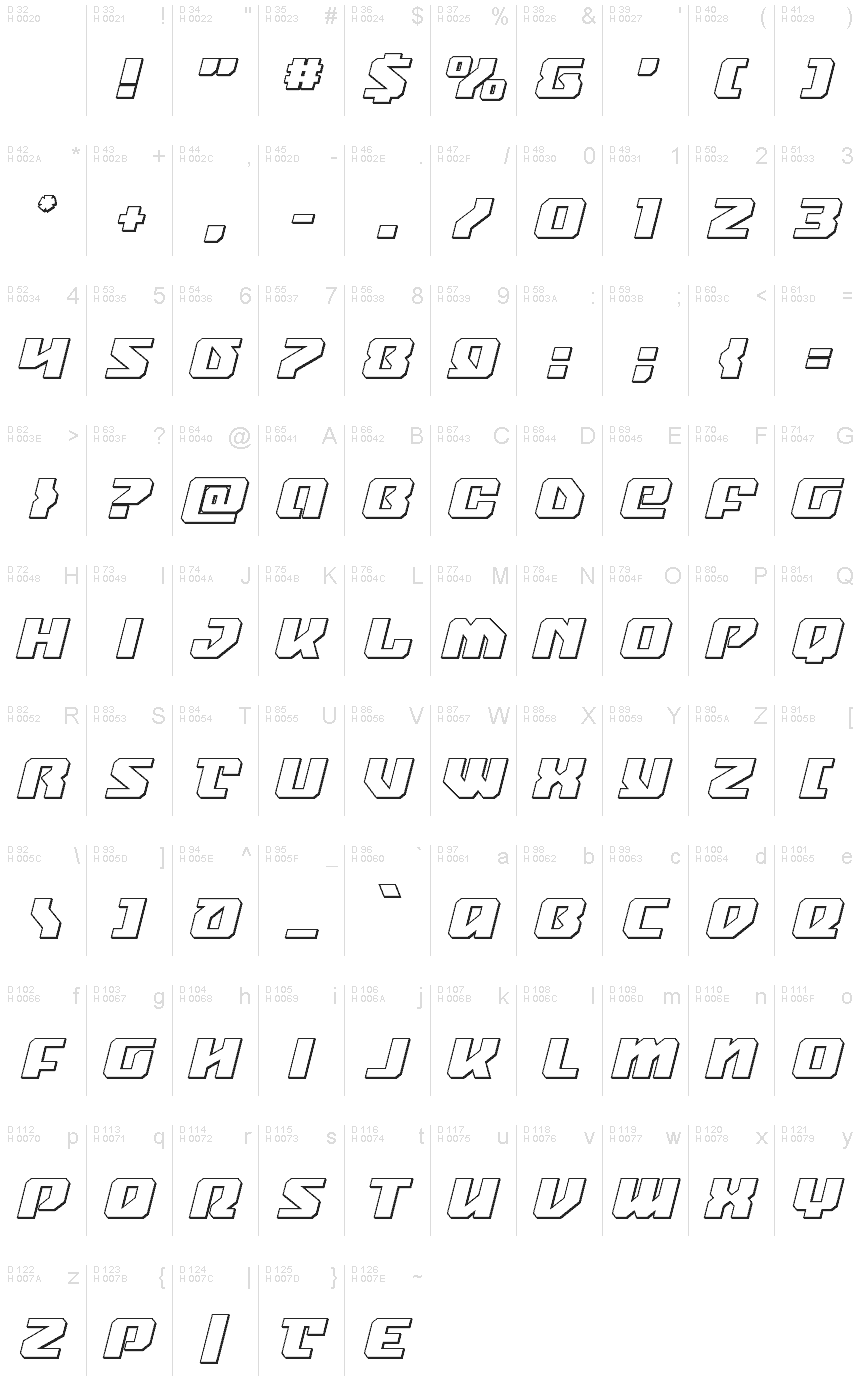
Legacy Cyborg 2 3D Italic
Legacy Cyborg 2 3D Italic font by Iconian Fonts is a bold expanded display font with a futuristic style. The typeface presents an angular, geometric, and mechanical look conveying precision and technology. It has a technical aesthetic that balances modern-retro influences making the design appealing to tech-savvy audiences.
Free futuristic display font for science fiction book covers, video game text, movie titles, animation captions, brand title logos (especially cars), geological research posters, biology projects or sites, physics designs or magazines integrating futuristic angles with modernity: a unique blend for any visual it’s incorporated into!